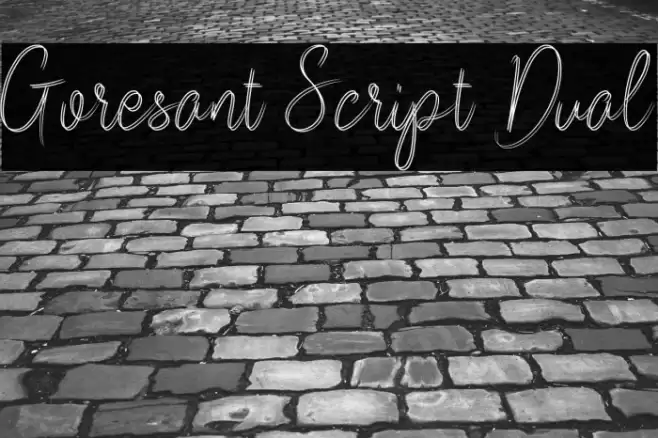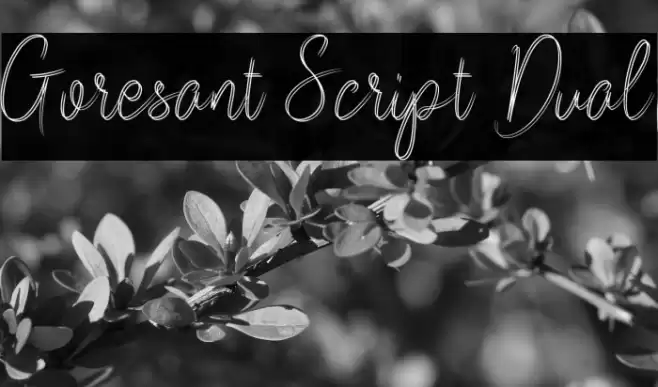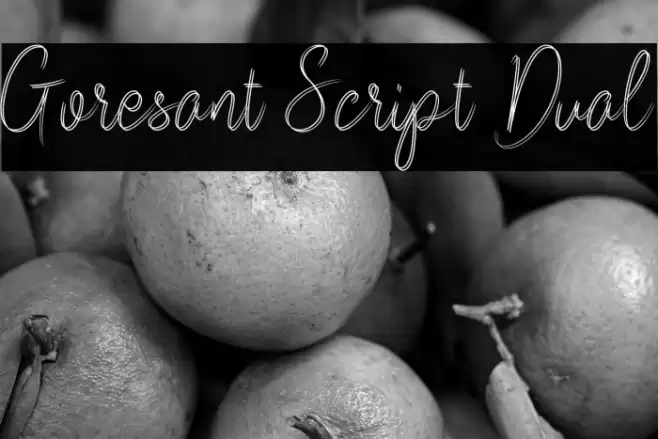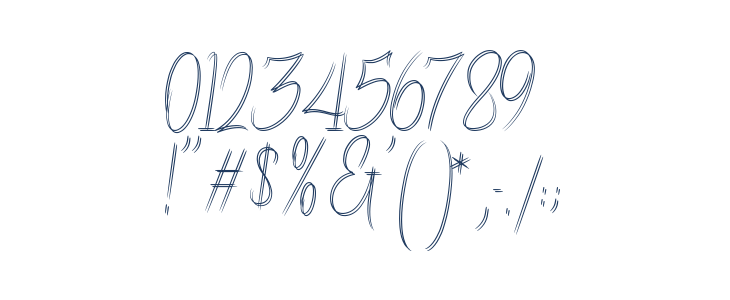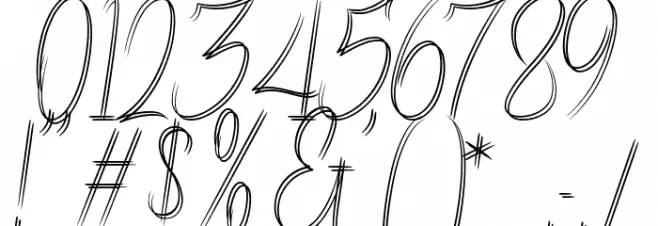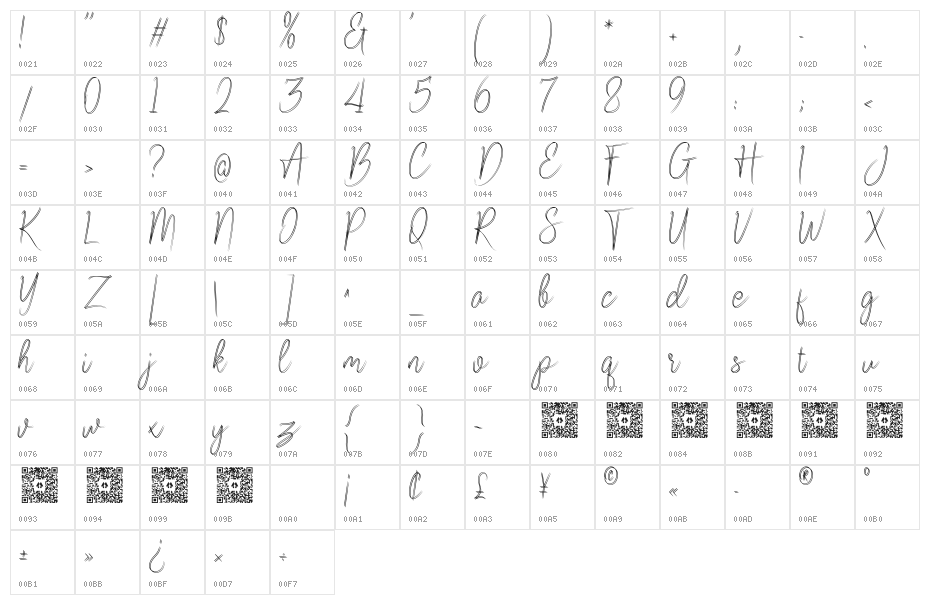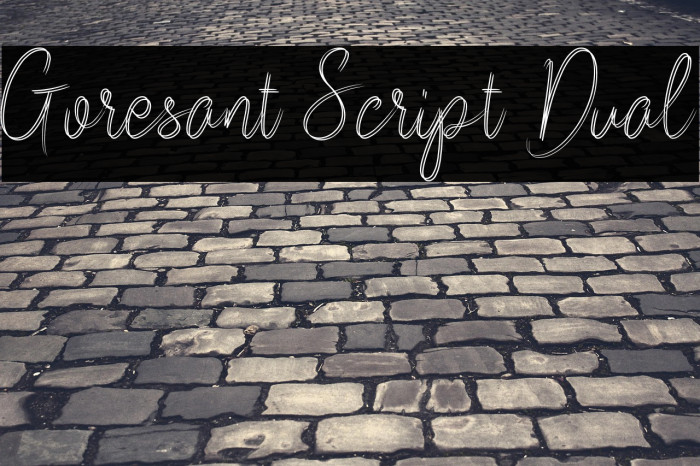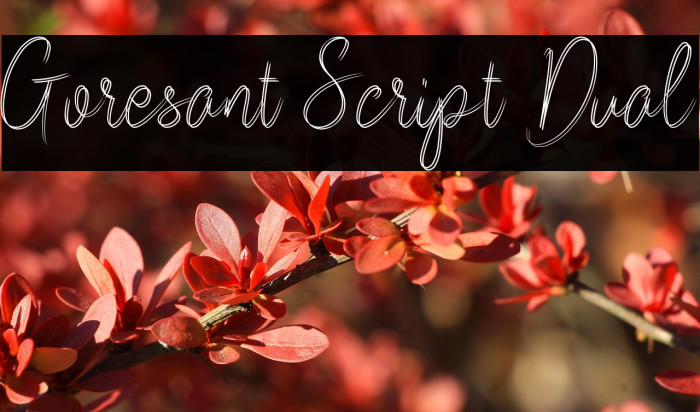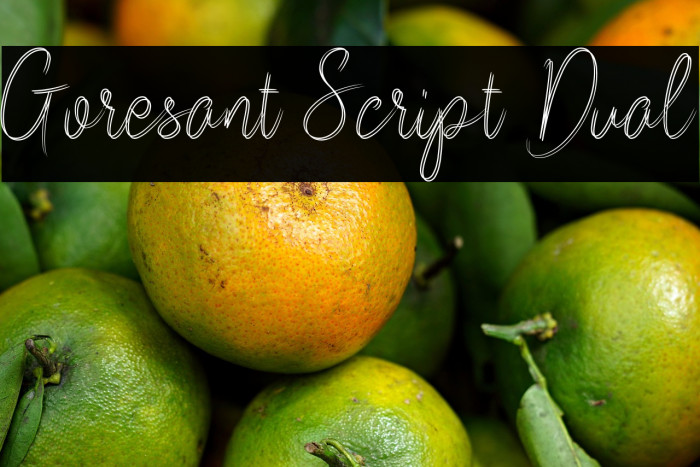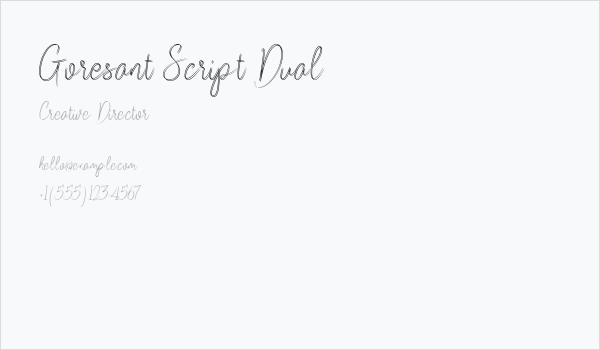
Goresant Script Dual Font
Goresant Script Dual Description
This font features a dynamic and fluid script style, characterized by its elegant and flowing letterforms. The strokes are smooth and slightly irregular, giving it a hand-drawn appearance. The uppercase letters are tall and slender, while the lowercase letters are more rounded and connected, enhancing the cursive feel. The numbers and special characters maintain the same fluidity, ensuring consistency across the font. This script is ideal for adding a personal and artistic touch to any design project.
A dynamic and fluid script font with elegant, flowing letterforms from Regular fonts.
- Proposed Projects: Ideal for wedding invitations, greeting cards, branding, and logo design where a personal and artistic touch is desired.
- Use Case: Logos, Invitations, Artistic projects